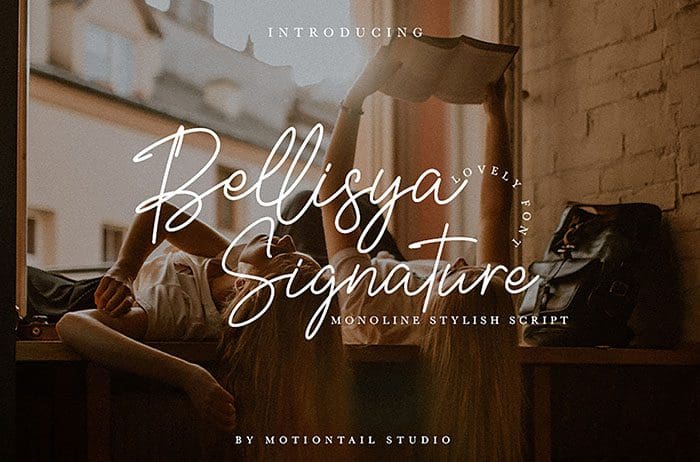
Free Bellisya Signature Font
Bellisya Signature Font
Free Bellisya Signature Font. It is perfect for logo/branding projects, large header text and product packaging. Designed this font by Motiontail Studio. You can also search more freeĀ Signature Fonts. We hope you enjoy this font.